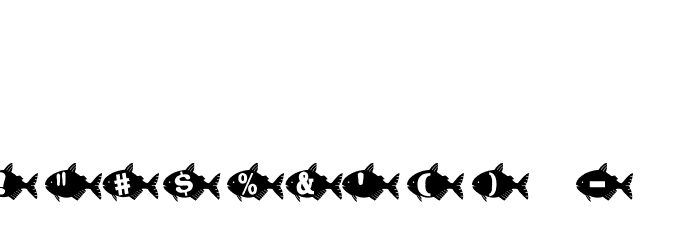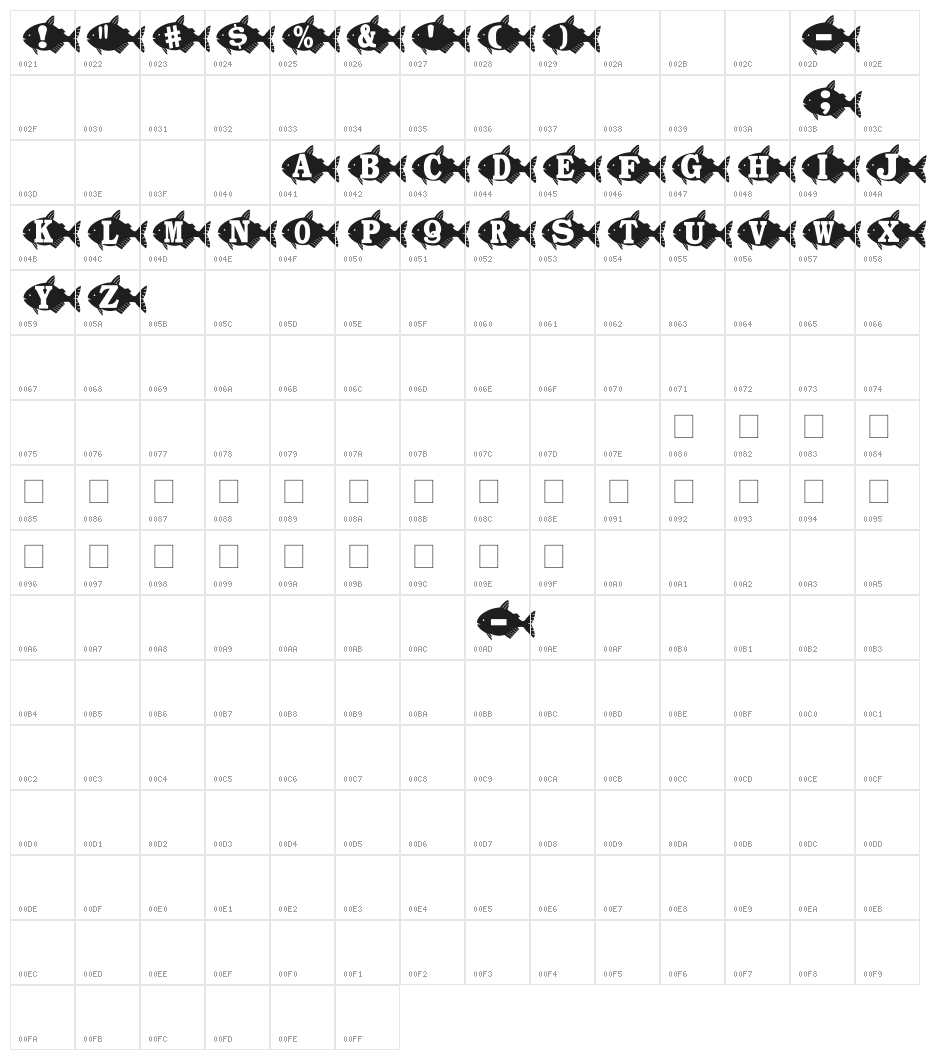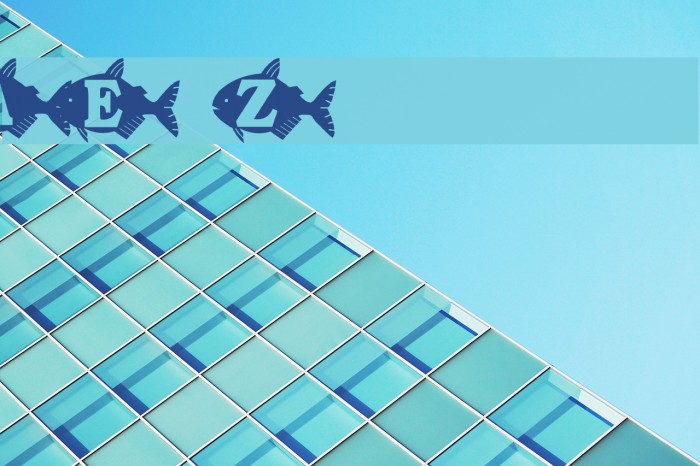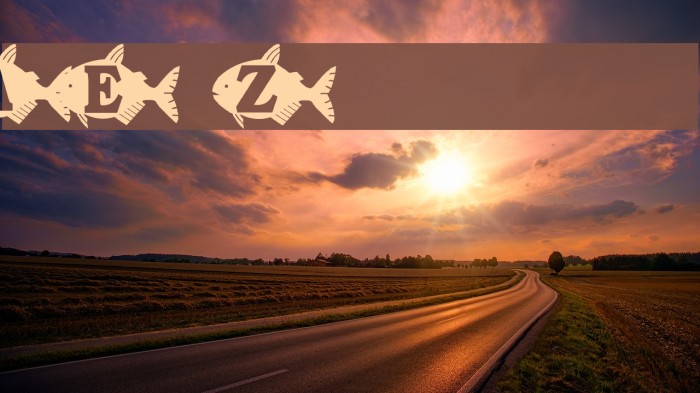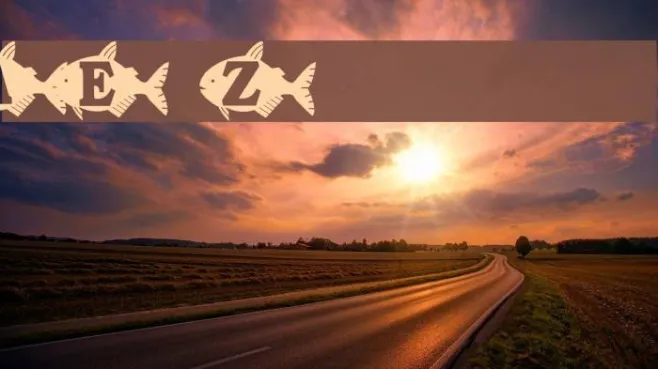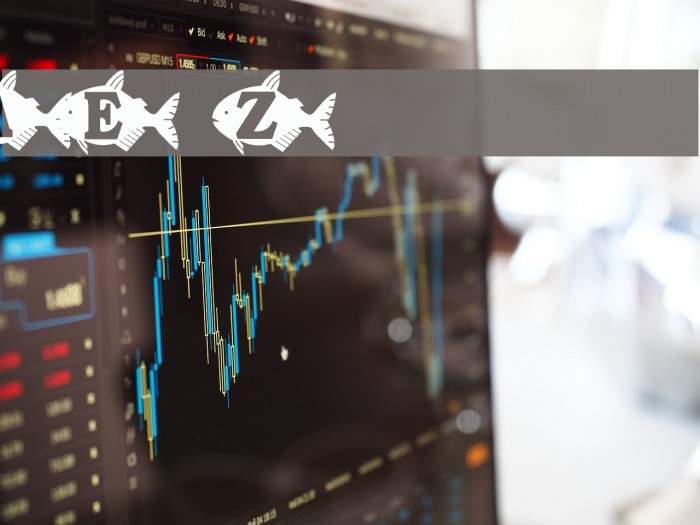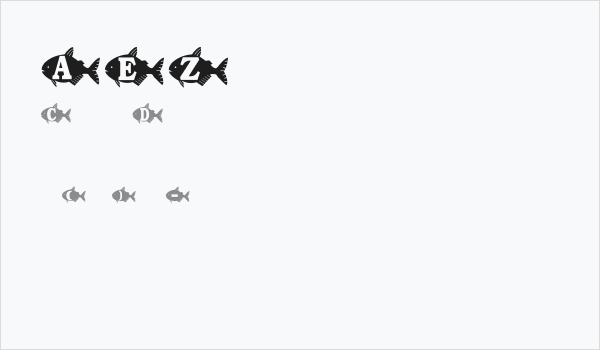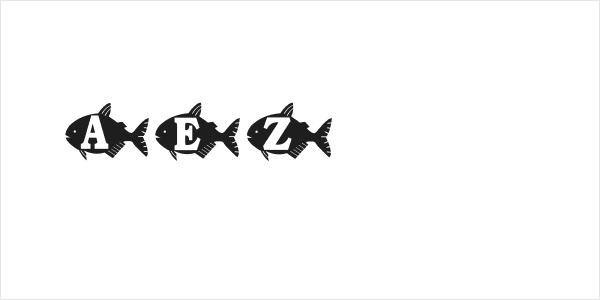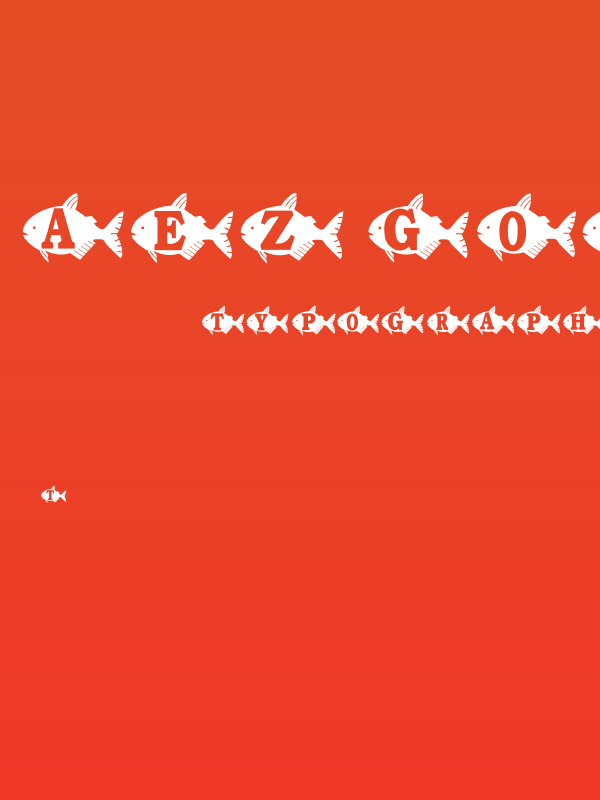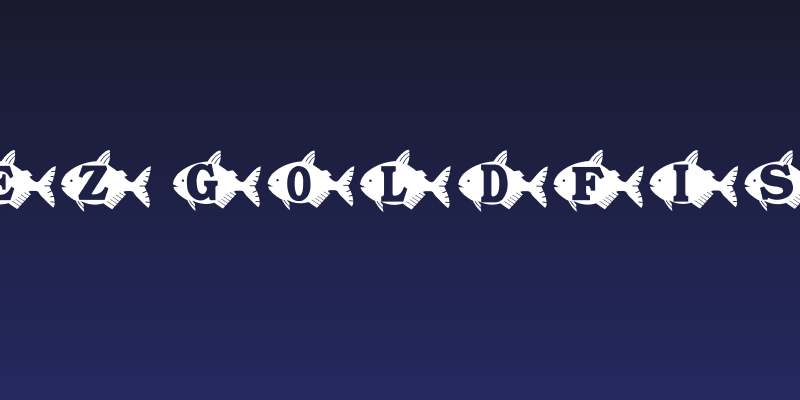
AEZ goldfish Font
AEZ goldfish Description
This playful and whimsical font features characters encased within stylized fish silhouettes, creating a unique and eye-catching design. Each letter and symbol is centrally positioned within the fish, which adds a decorative and thematic element to the text. The font is bold and has a consistent stroke weight, ensuring readability despite its intricate design. The characters are evenly spaced within the fish shapes, maintaining a balanced and harmonious appearance. This font is ideal for projects that require a fun and thematic touch, such as children's books, aquatic-themed events, or playful branding.